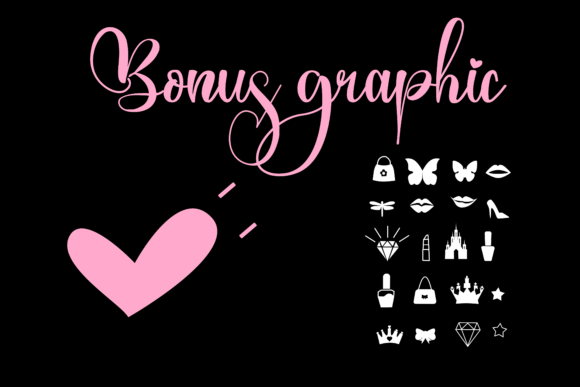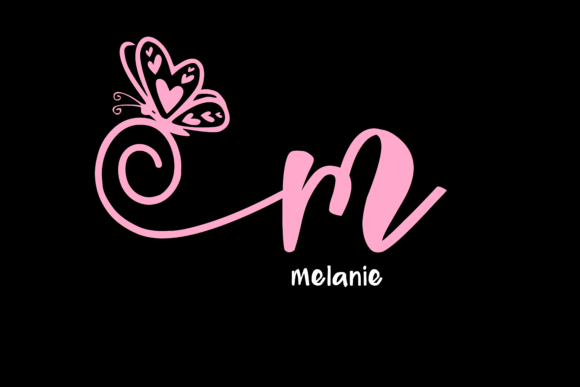
Hello Barbie Font
Hello Barbie is an elegant and flowing handwritten font. It features varied baselines, smooth lines, gorgeous glyphs, and stunning alternatives. It maintains a classy calligraphic influence while feeling contemporary and fresh. Fall in love with this font and take your projects to the highest level!